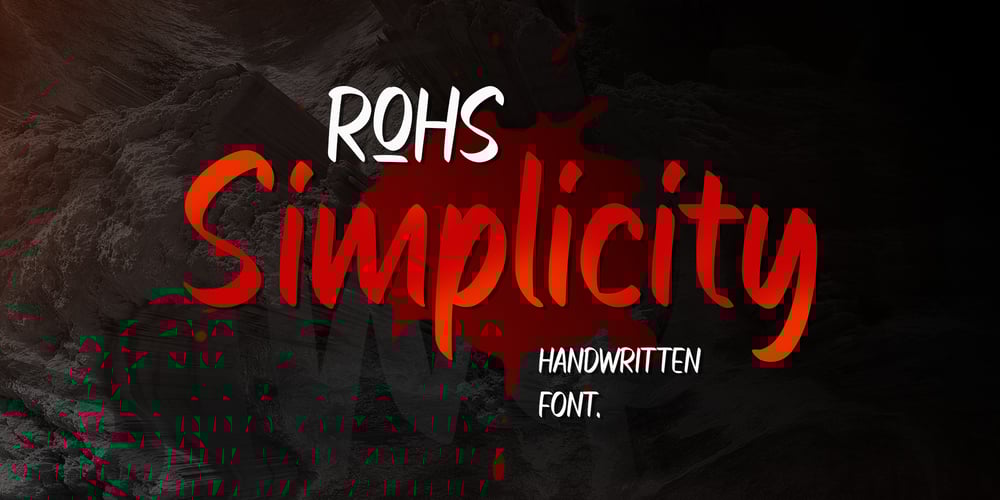
ROHS Simplicity
ROHS Simplicity font
ROHS Simplicity Font Family was designed by Dwi Ahidian and published by Lemonthe. ROHS Simplicity contains 1 styles and family package options. ROHS Simplicity is a handwritten font. It’s perfect for , branding, stationery design, social media, packaging, magazine layout, prints, and more.